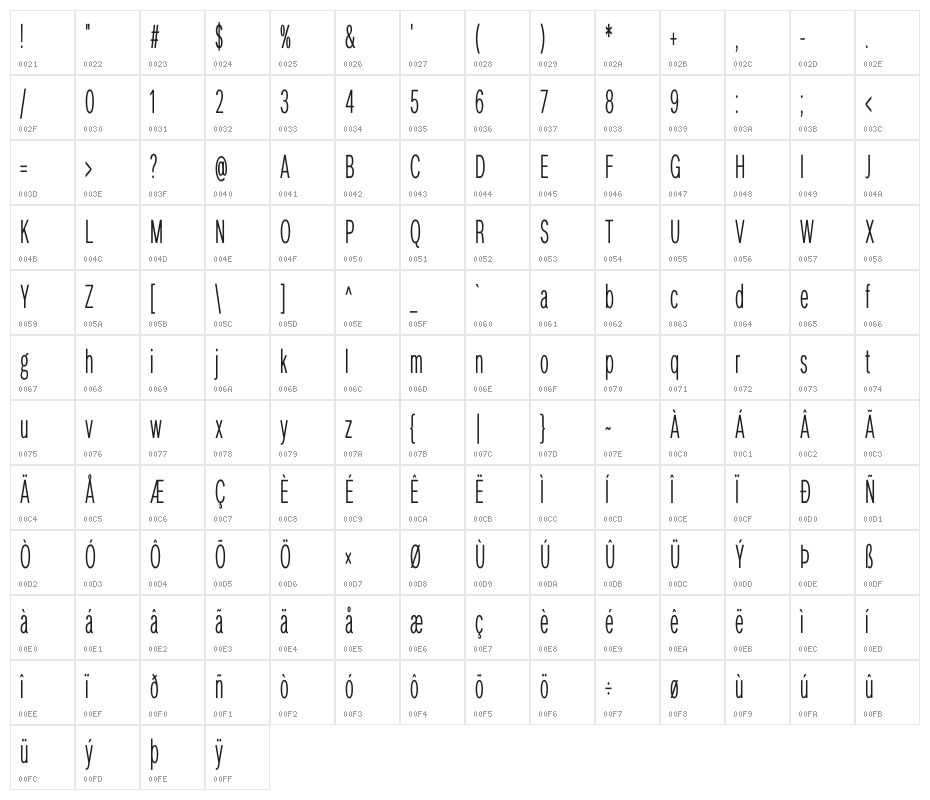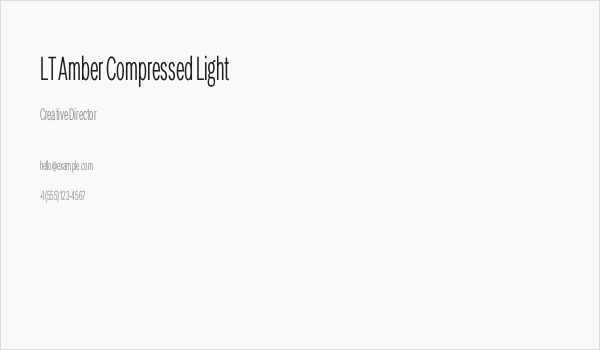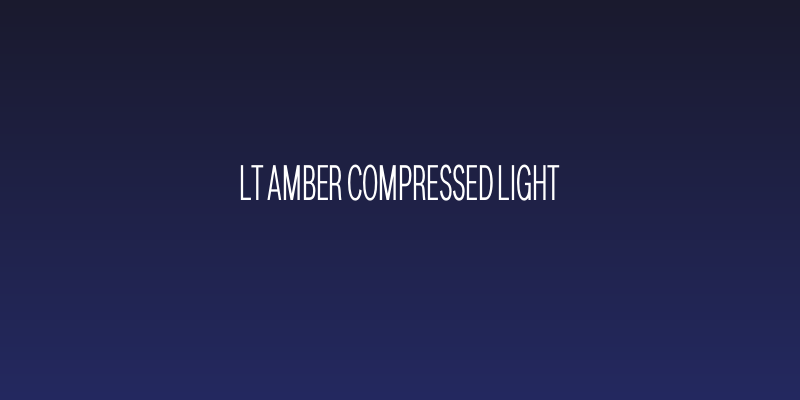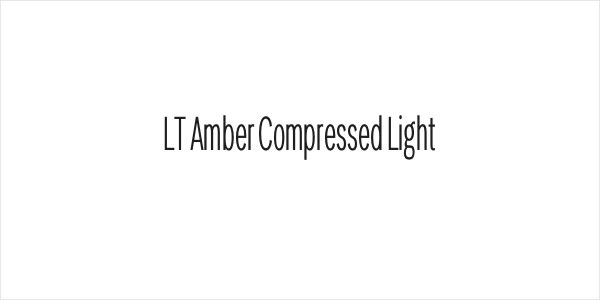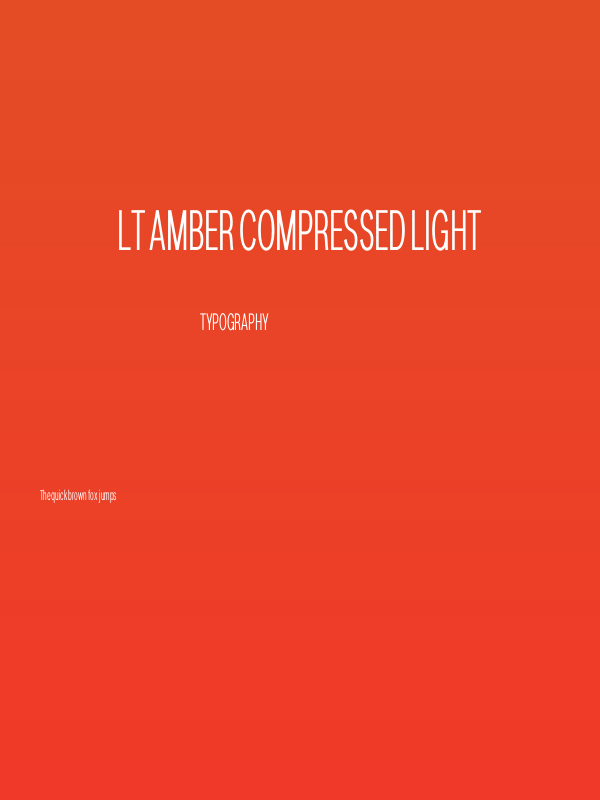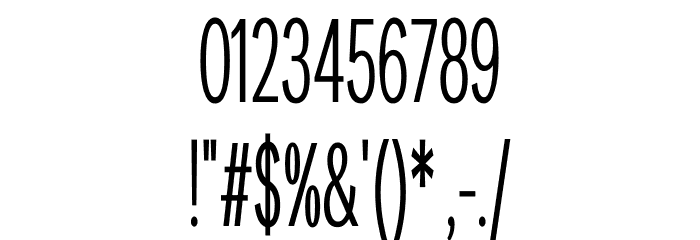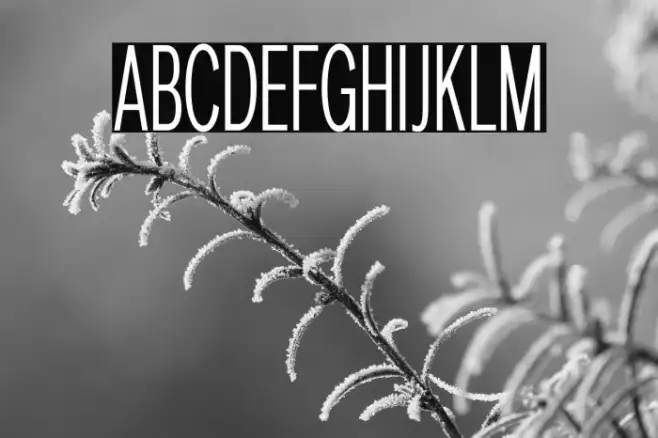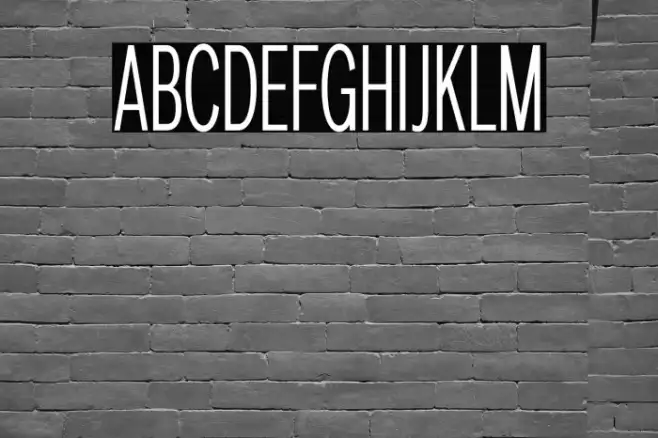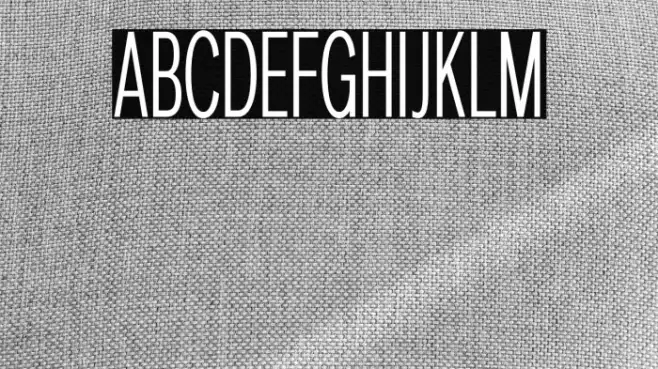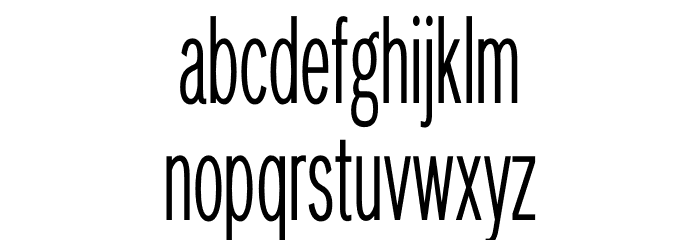
LT Amber Compressed Light Font
LT Amber Compressed Light Description
This typeface features a sleek, modern design with a compressed and light structure. The characters are tall and narrow, providing a clean and efficient use of space. The sans-serif style gives it a contemporary and professional appearance, making it suitable for a variety of applications. The uniform stroke width and minimal contrast contribute to its readability, even at smaller sizes. The font's design is straightforward, with smooth curves and sharp edges, offering a balance between elegance and simplicity. It includes a full set of uppercase and lowercase letters, numbers, and a variety of special characters, ensuring versatility in usage.
| Proposed Projects | Ideal for branding, advertising, editorial design, and digital interfaces where space efficiency and modern aesthetics are key. |